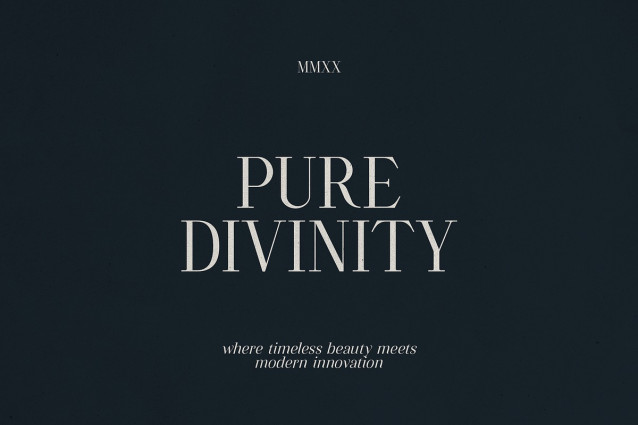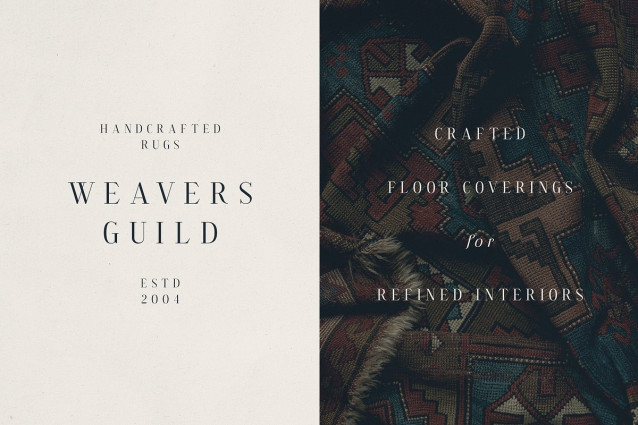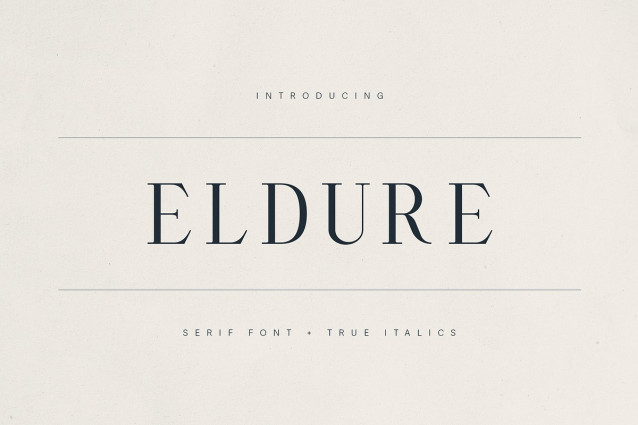
Eldure Font
Eldure Font, a refined serif typeface designed for elegance, editorial charm, and timeless sophistication. Featuring true italics, high contrast strokes, and carefully crafted letterforms, Eldure is ideal for branding, luxury packaging, lifestyle magazines, weddings, and upscale design projects.
Eldure draws inspiration from classic editorial typography, blending traditional Roman structure with modern finesse. From elegant headlines to delicate body copy, its balanced proportions and nuanced serifs bring a sense of grace to any layout.